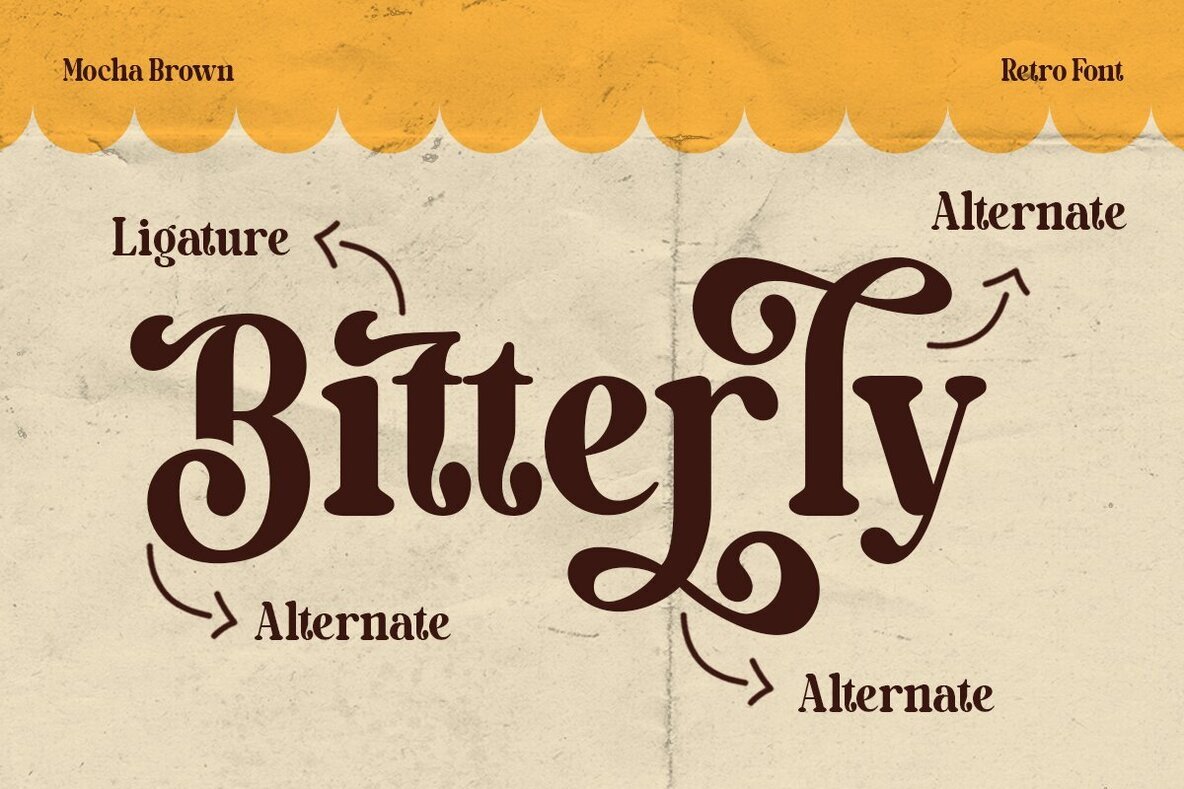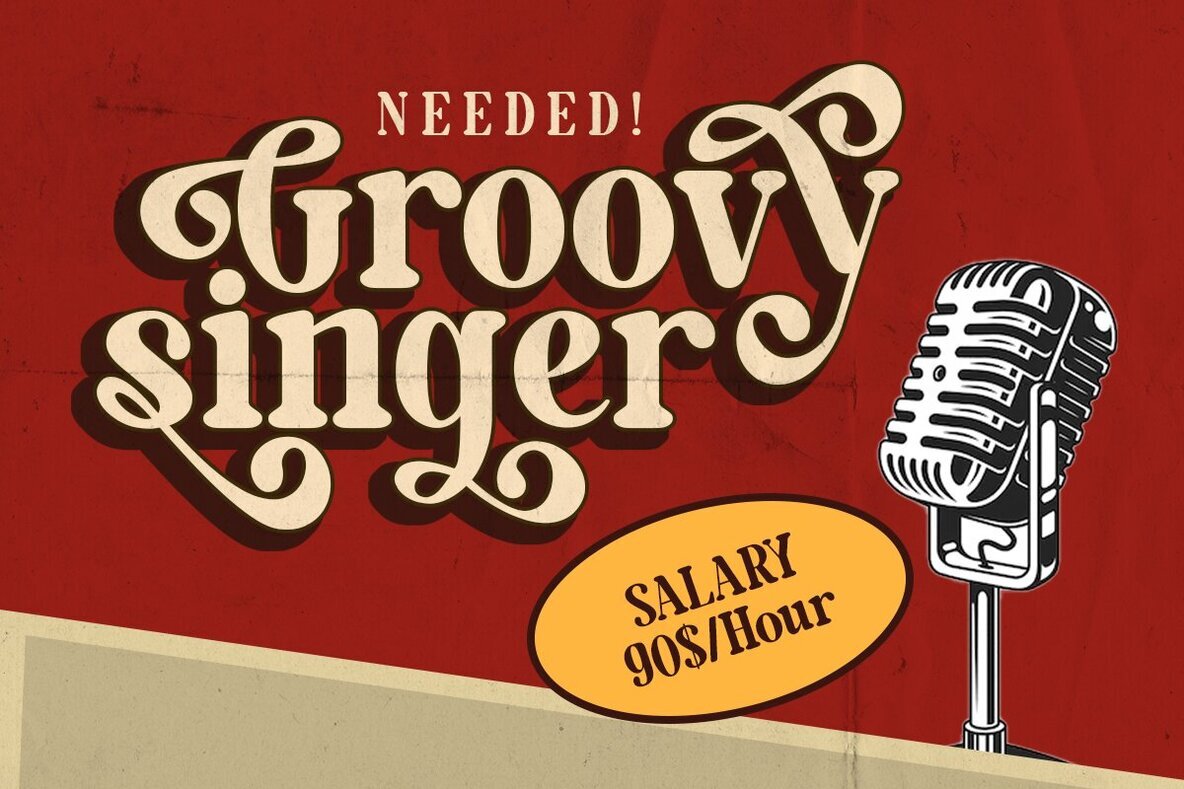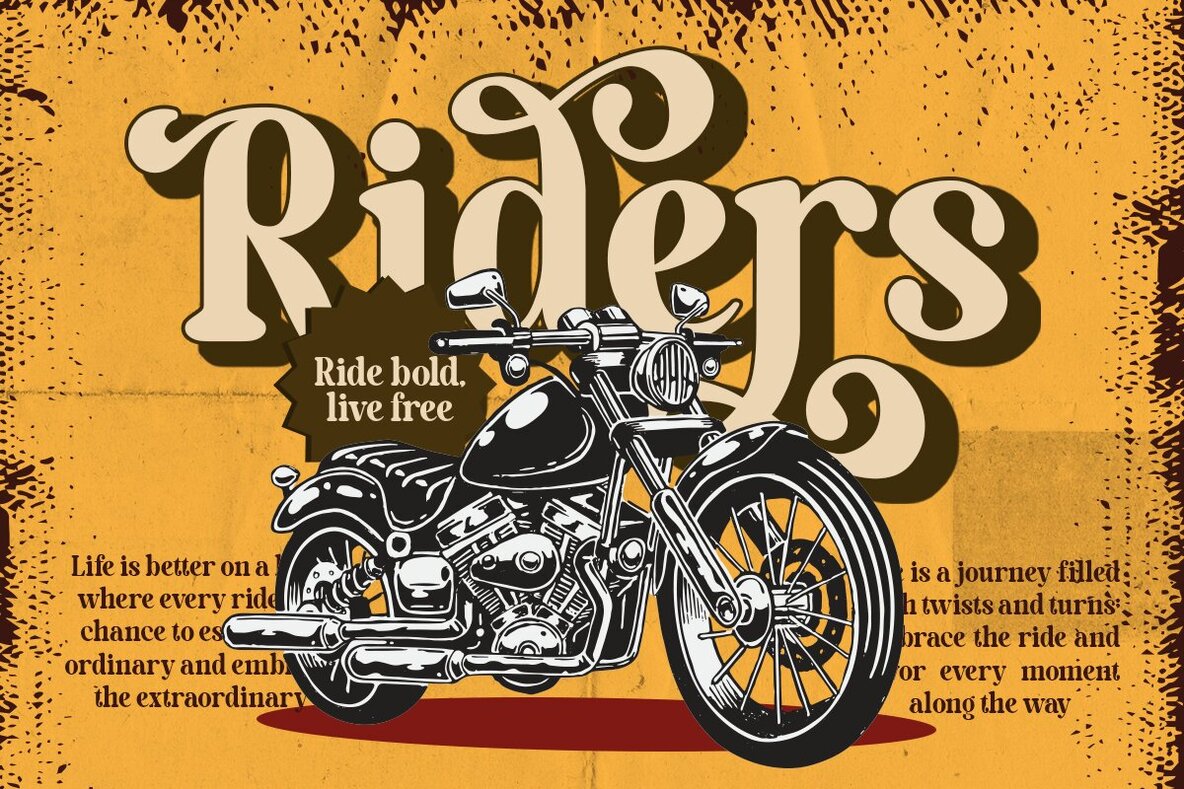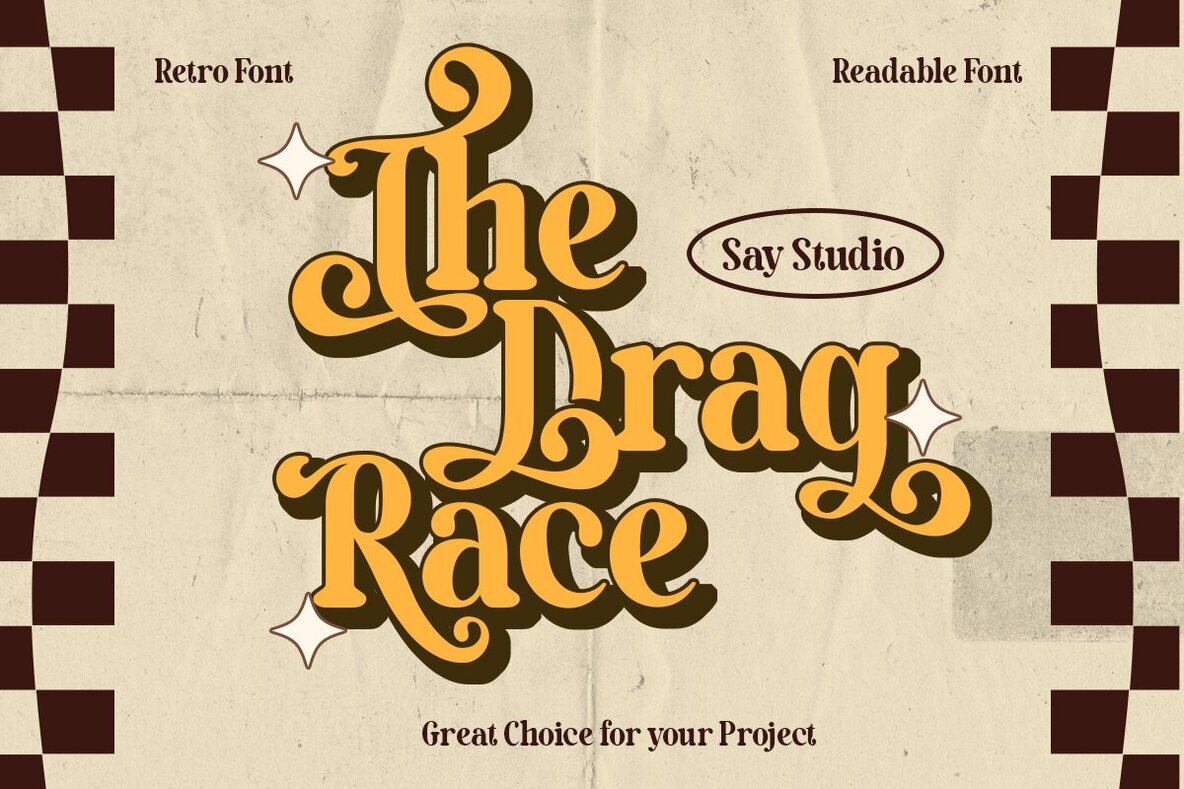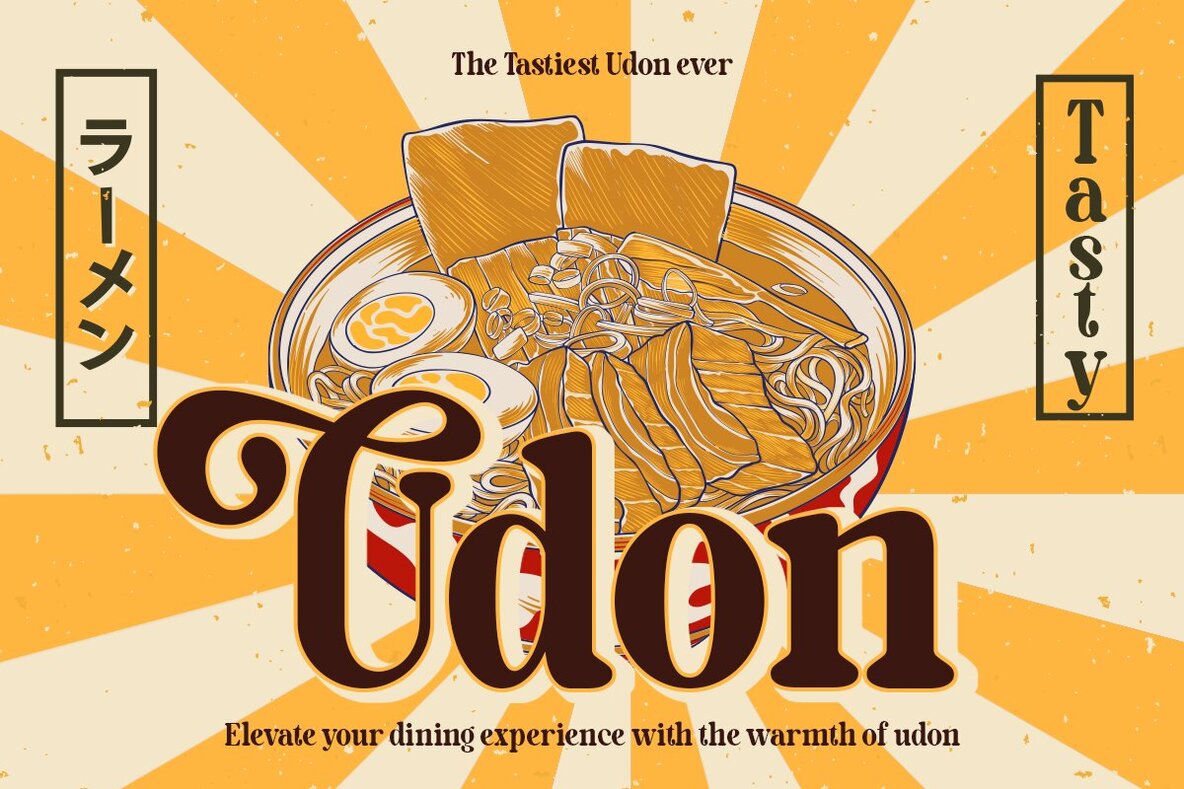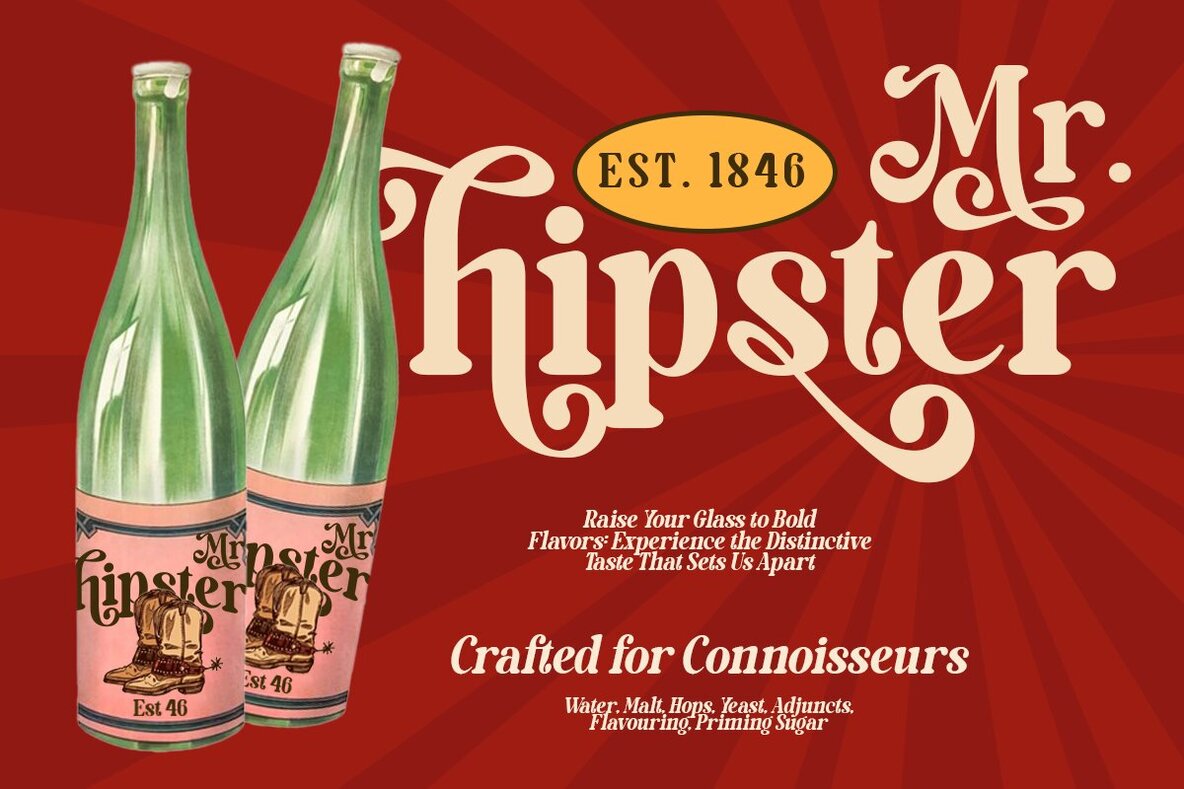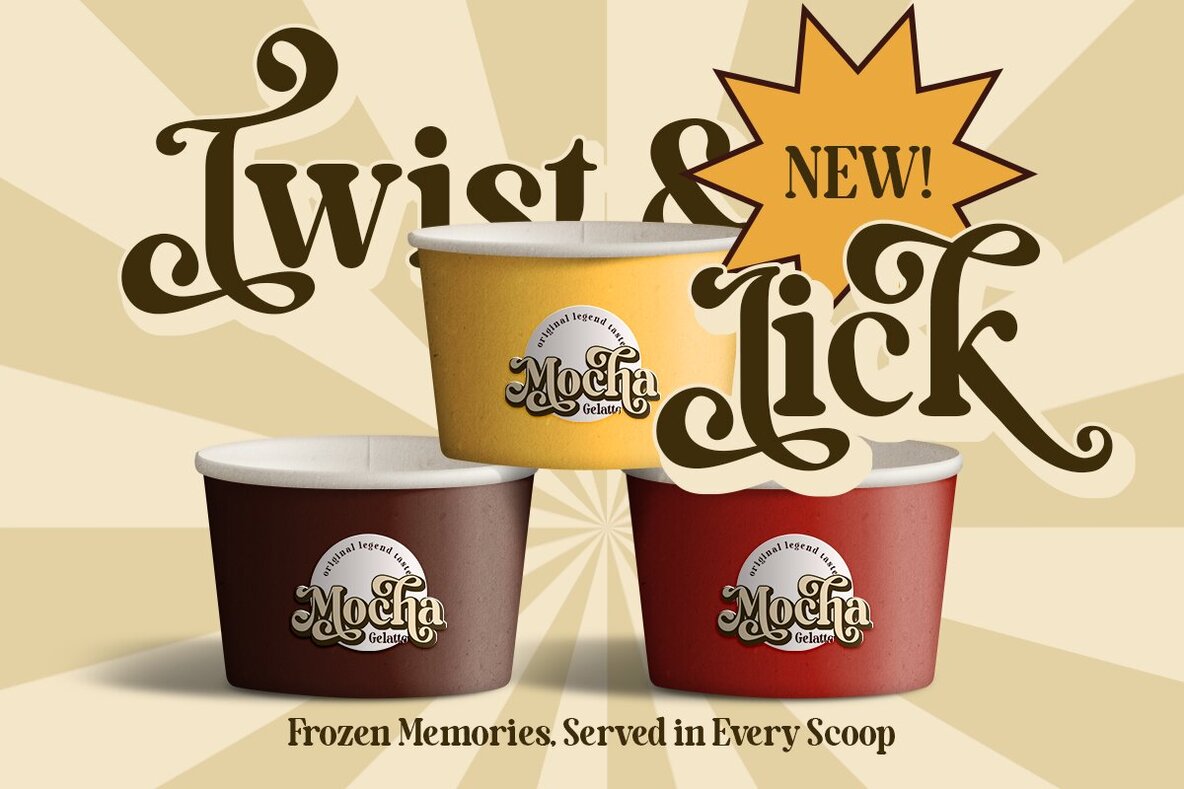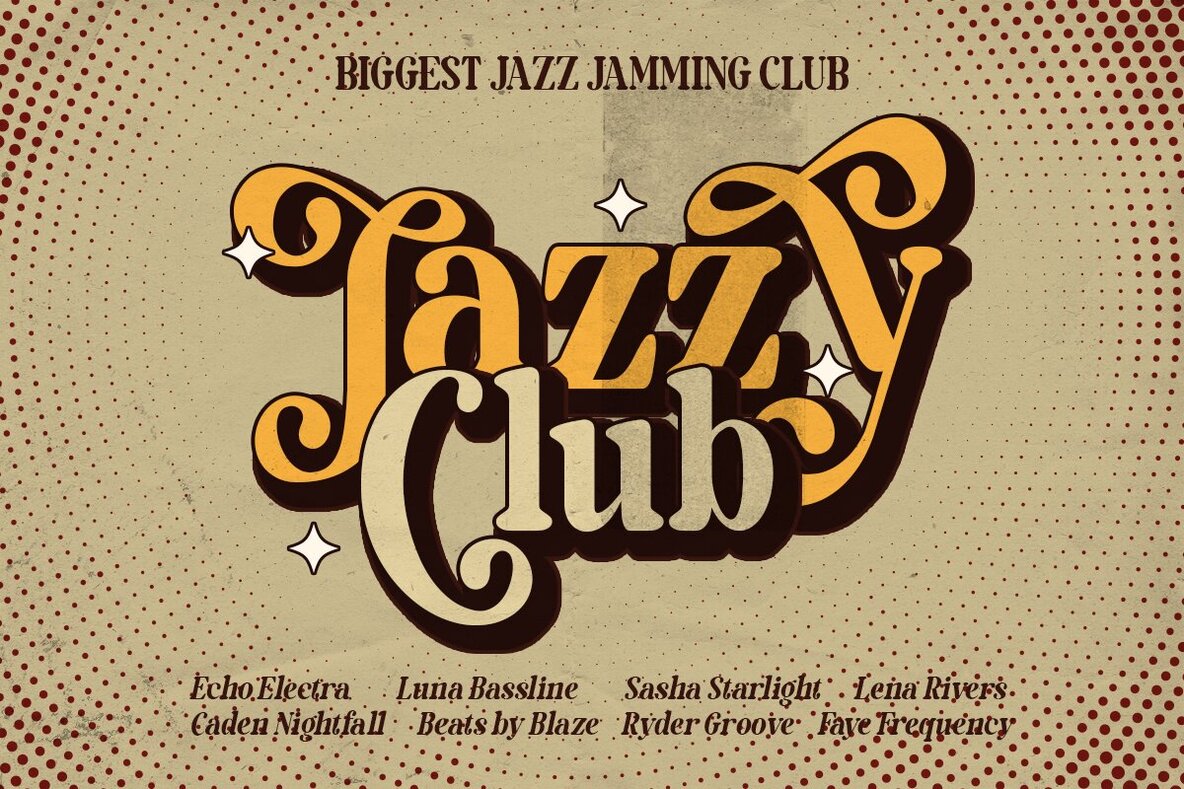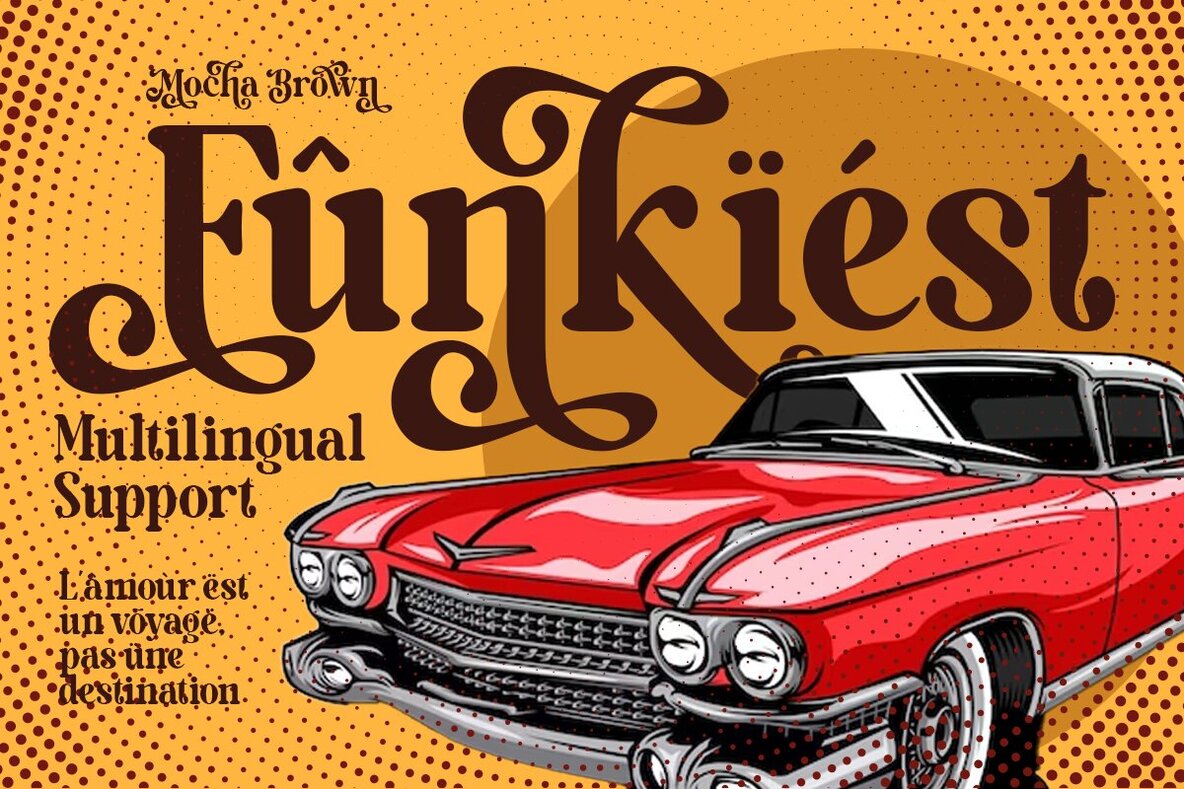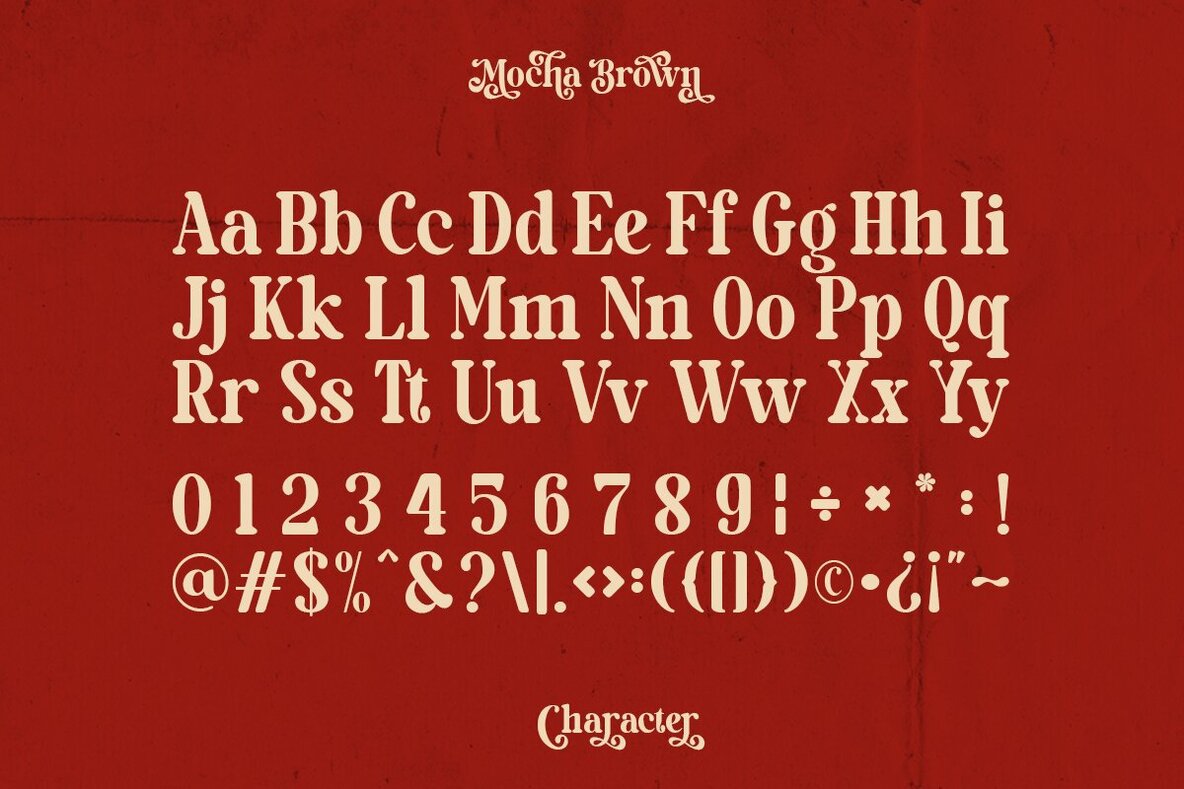
Mocha Brown Font
Introducing Mocha Brown, a distinctive retro font that brings the nostalgic vibes of the 1970s to your design projects. This typeface offers a unique alternate version, making it effortless to achieve a retro effect. Mocha Brown is ideally suited for a variety of applications, such as logos, invitations, labels, magazines, books, greeting cards, wedding stationery, packaging, fashion editorials, makeup branding, and advertising.
Mocha Brown comes packed with essential features for creative versatility. It includes both uppercase and lowercase characters, numbers, and punctuation marks. The font also supports multilingual usage, while ligatures and alternates offer further customization options. The PUA encoding ensures easy access to all glyphs and characters, broadening its usability across different design requirements.